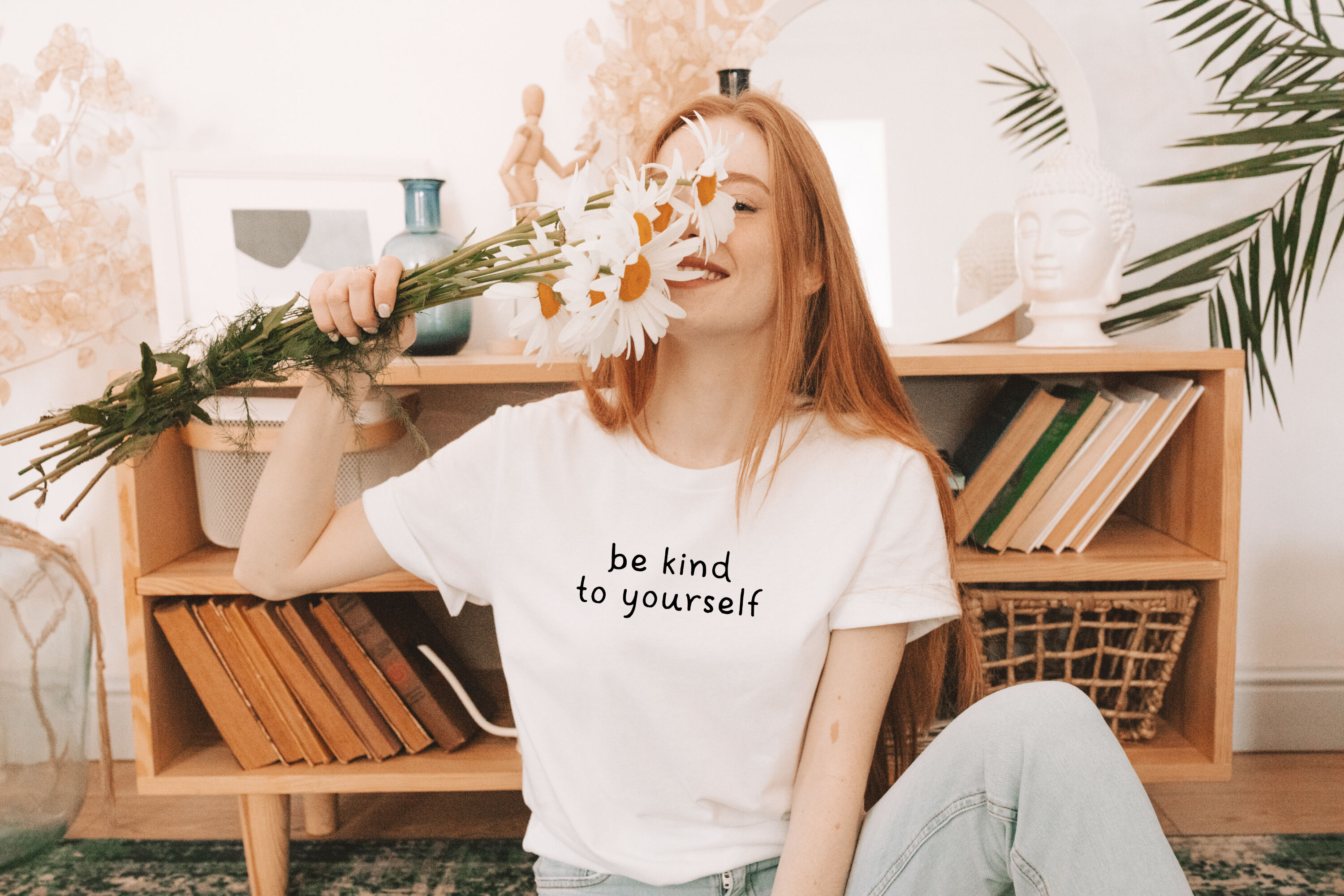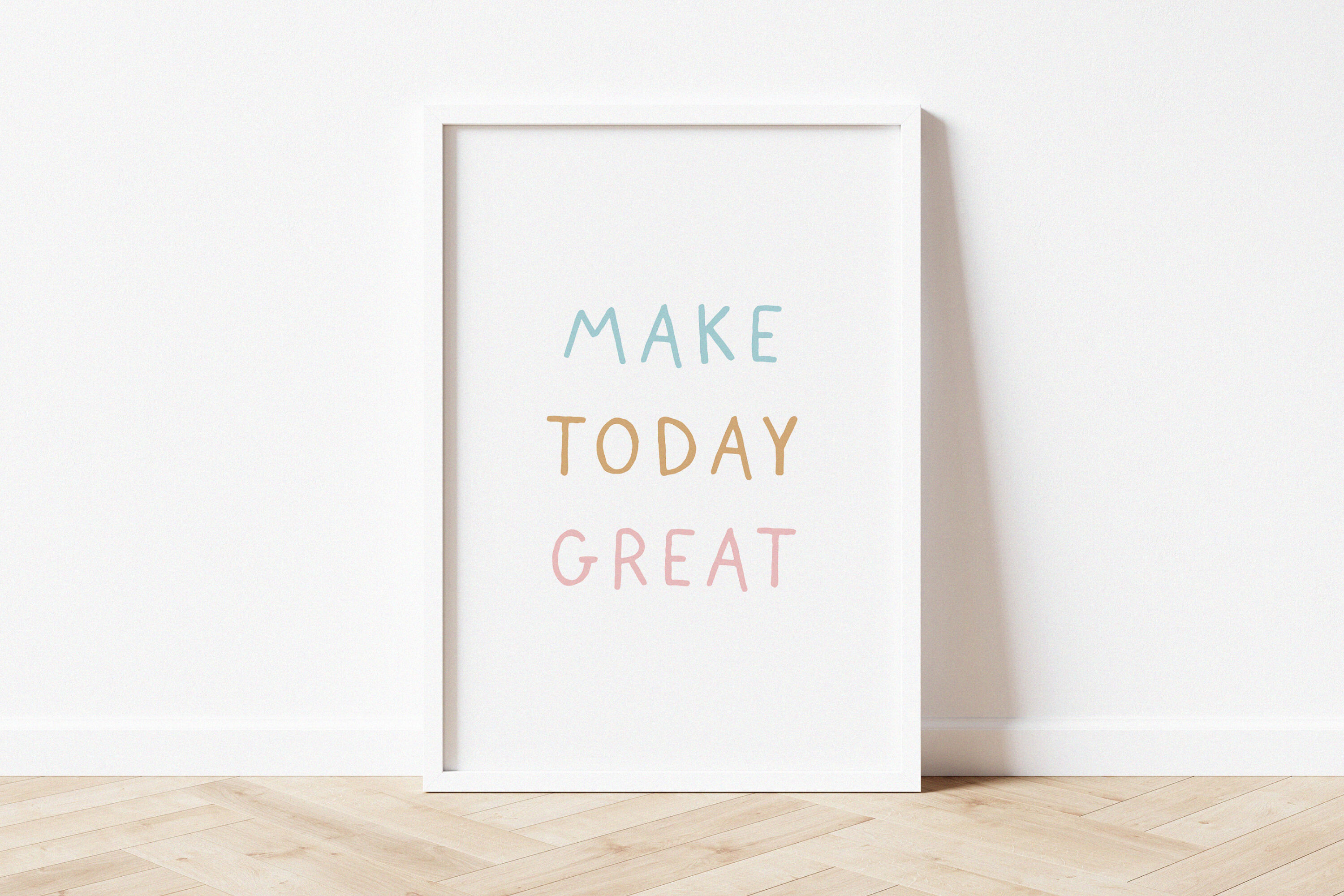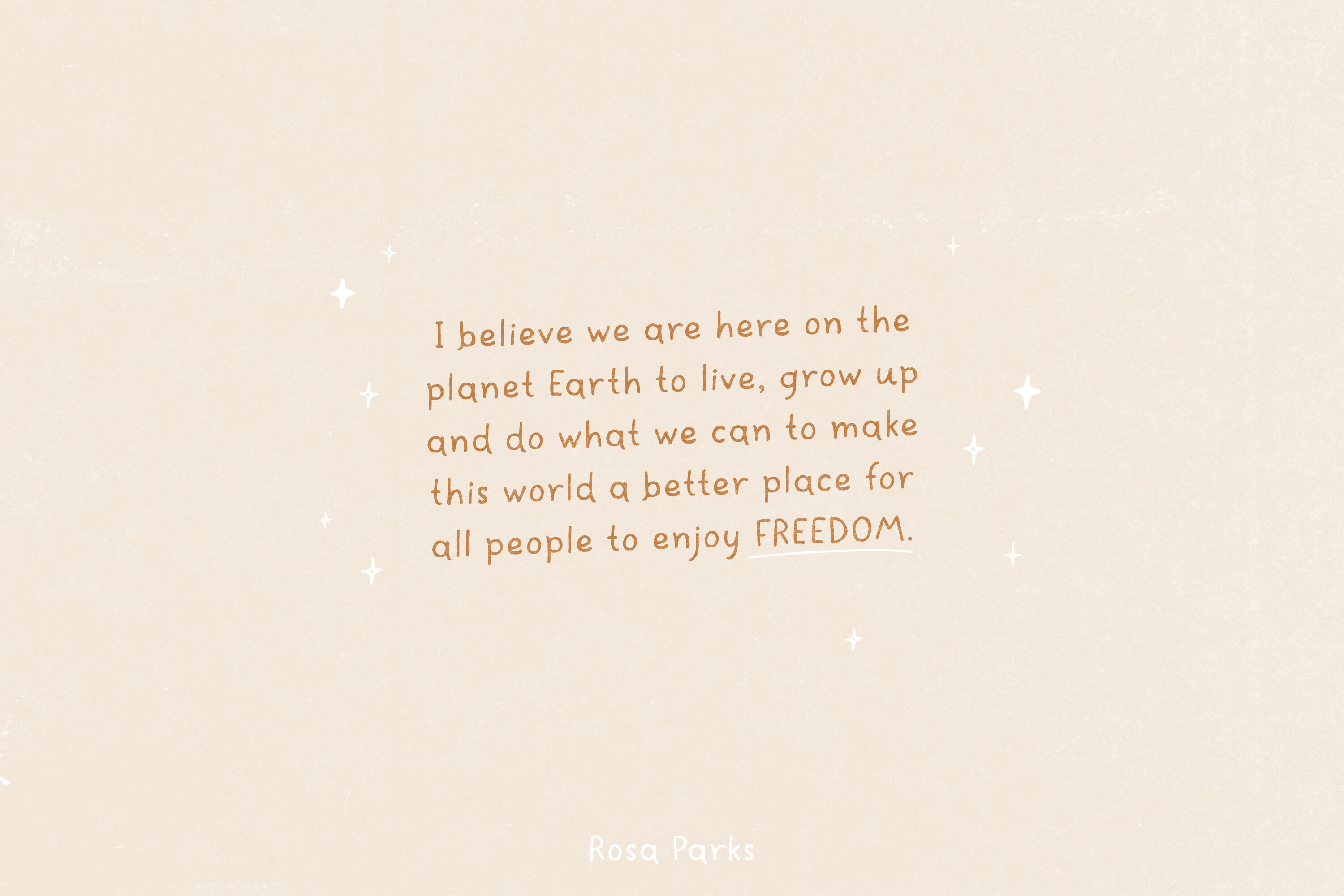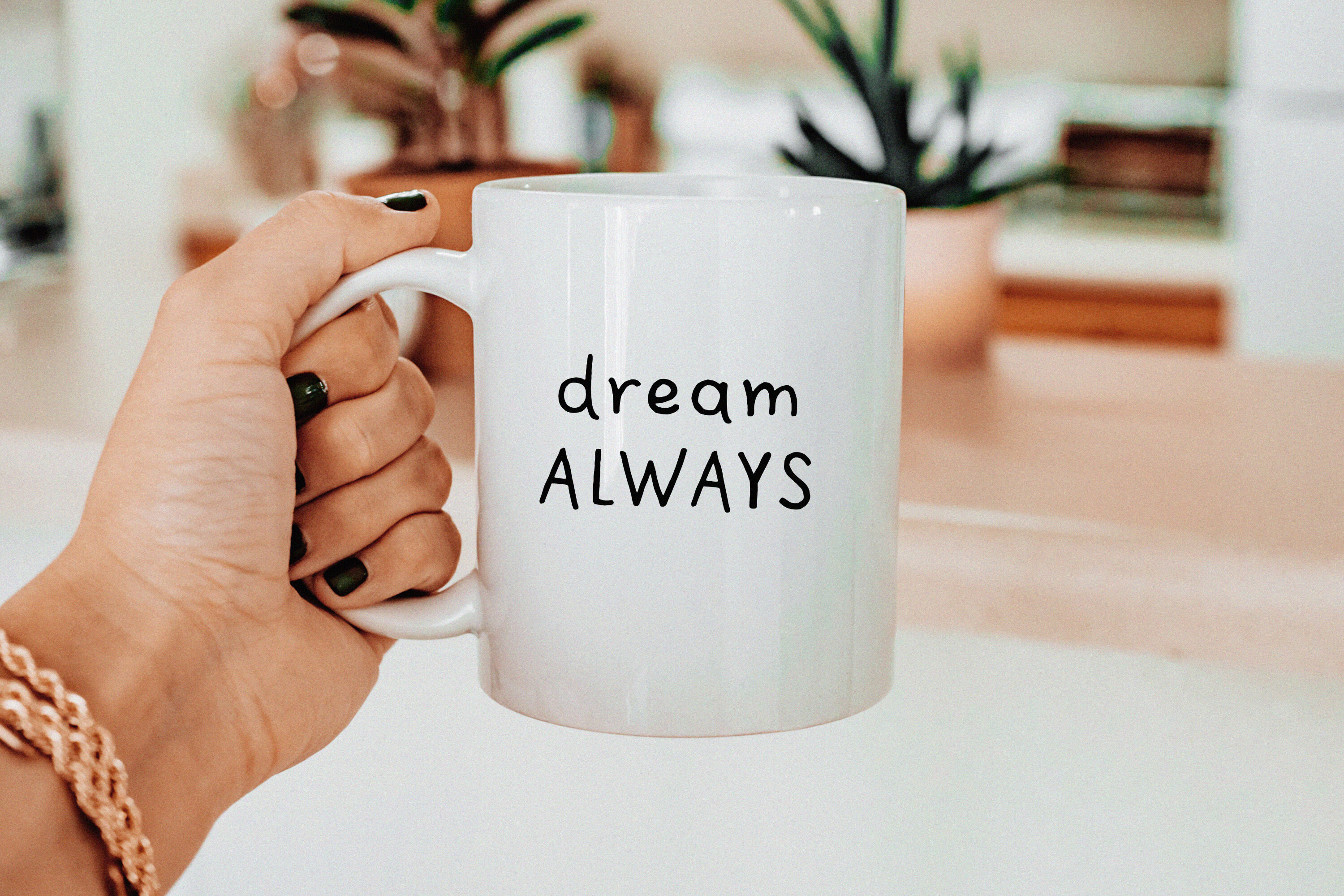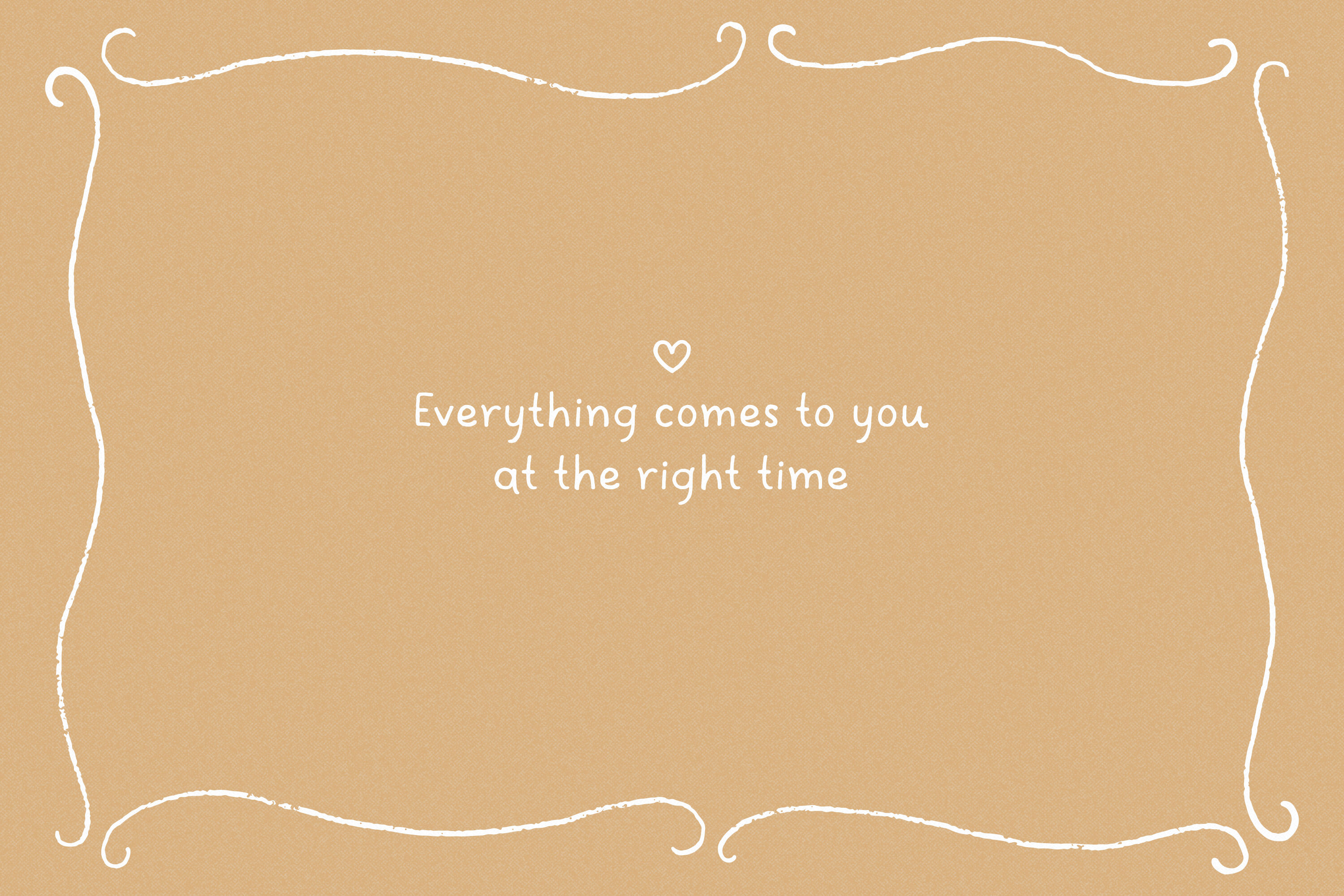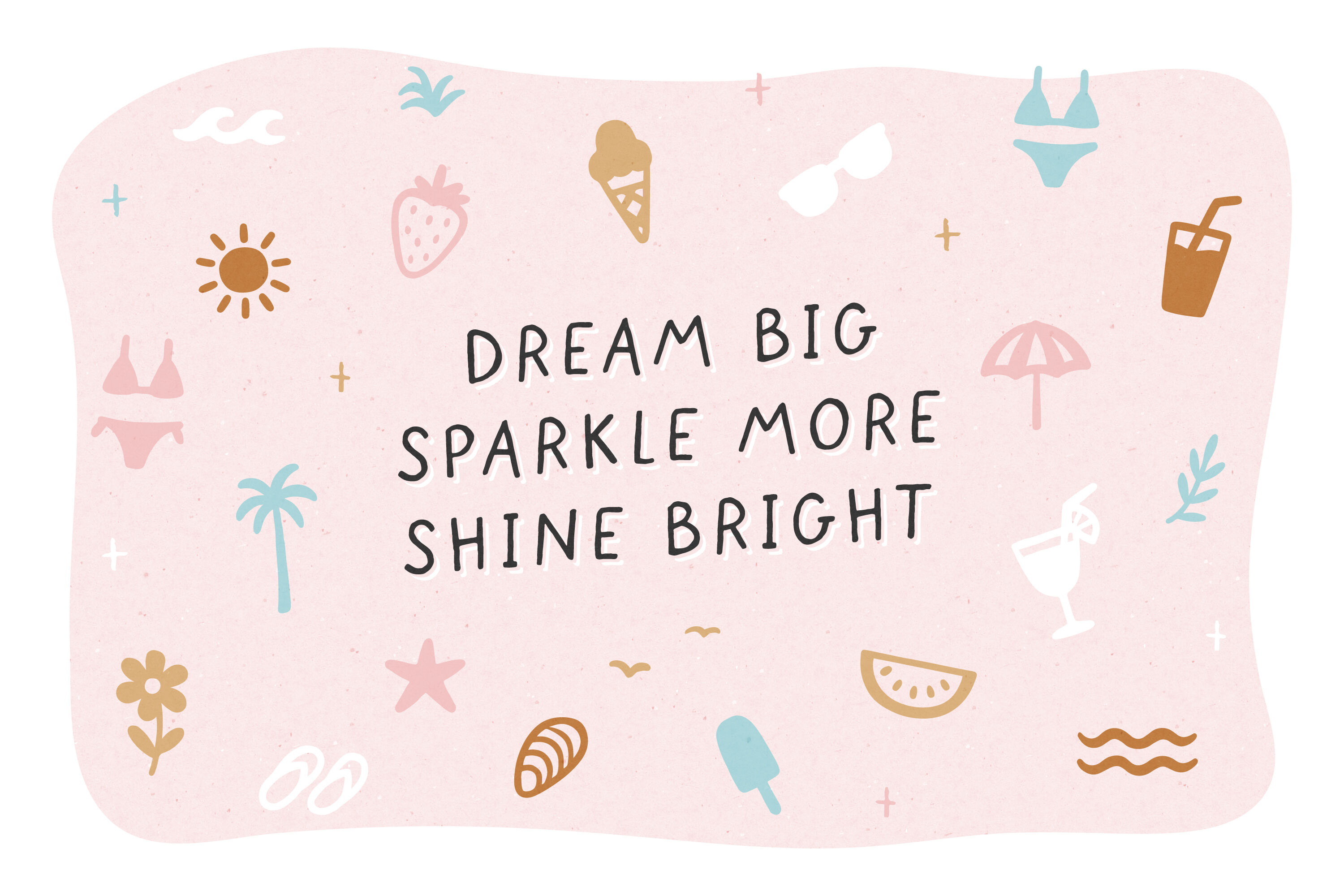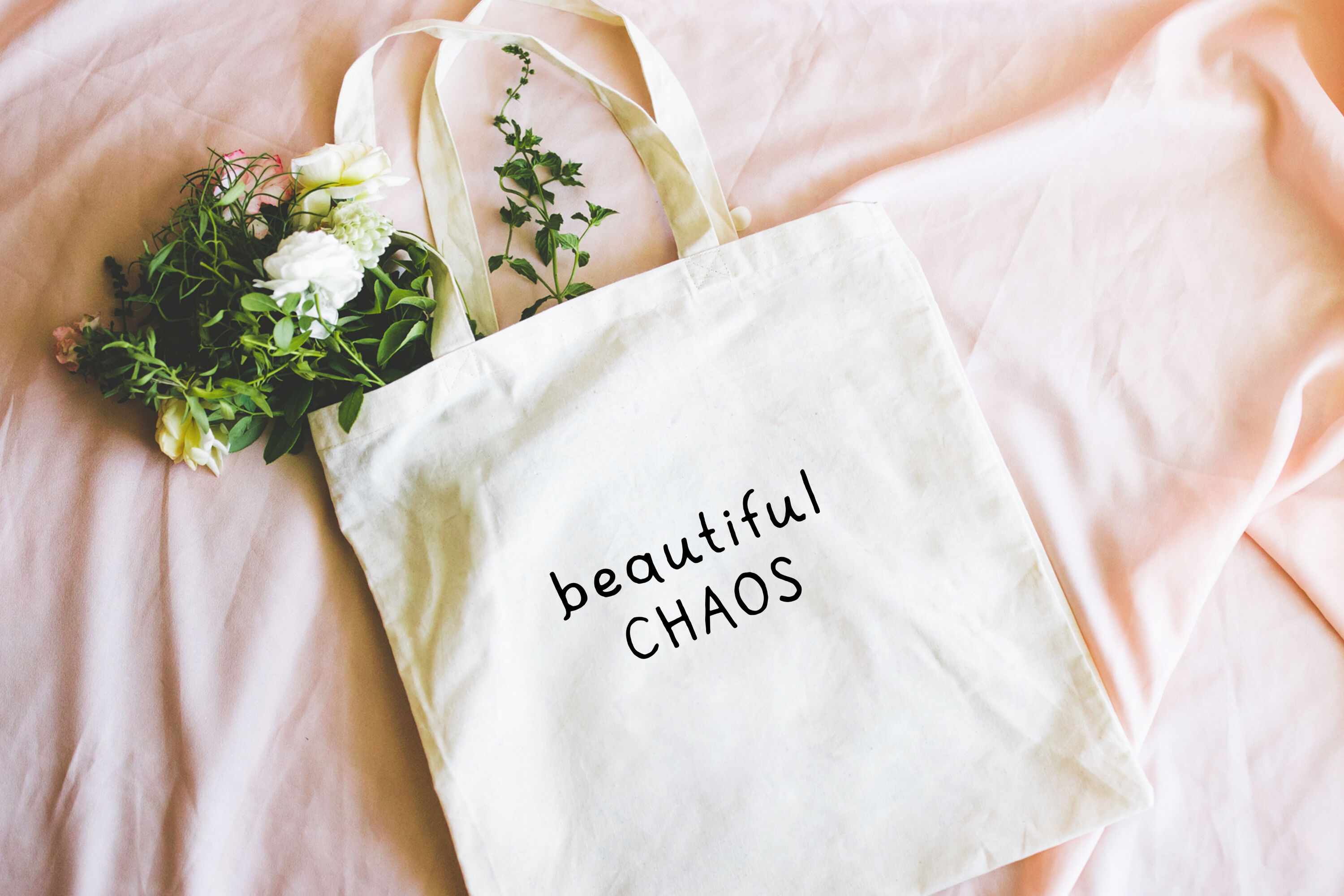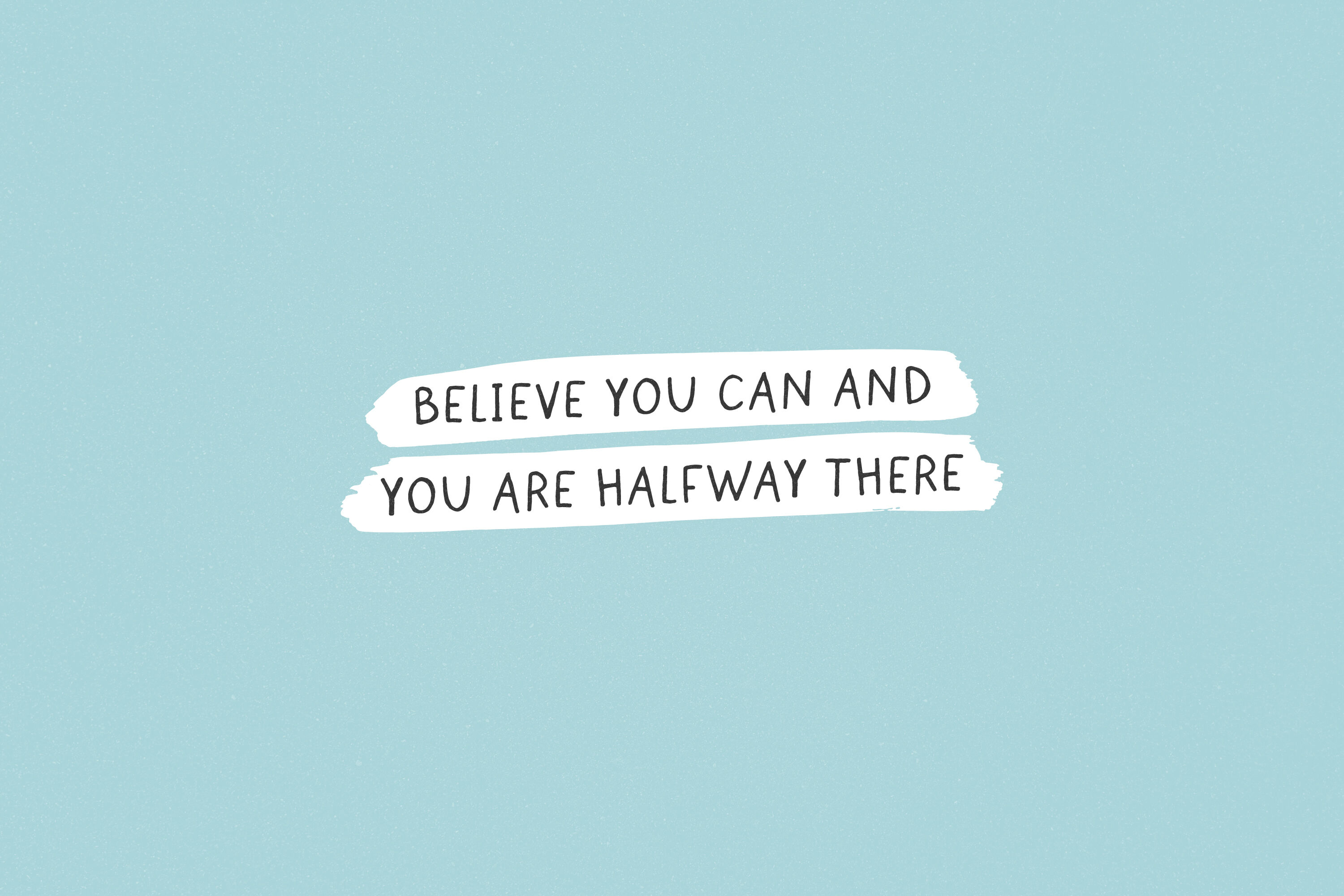
Little Daylights - Playful Font
Little Daylights is a playful handwritten font. Perfect for logos, branding, packaging, apparel, cards, posters, stickers, quotes, social media posts and more! You will get: LittleDaylights.otf Please don't hesitate to contact me if you have any questions. Happy creating and have a good day!